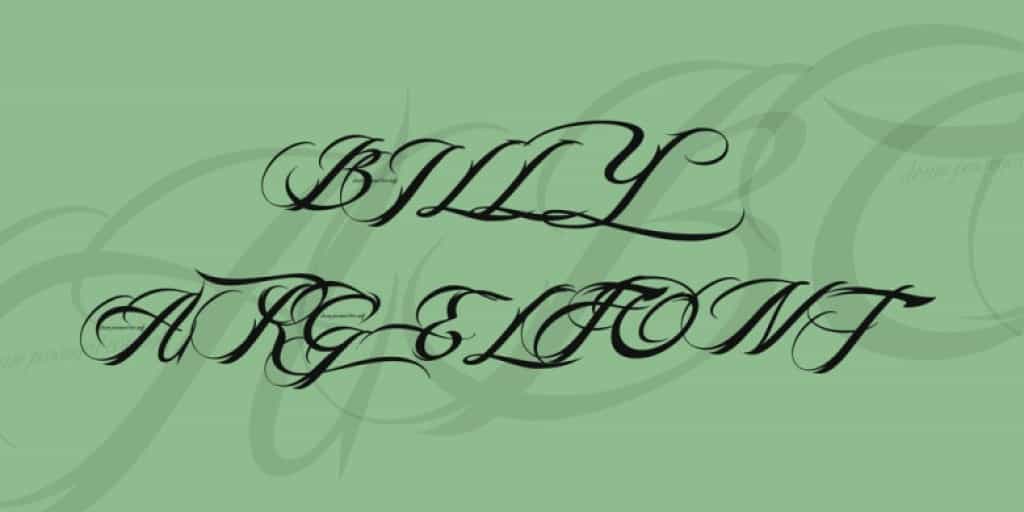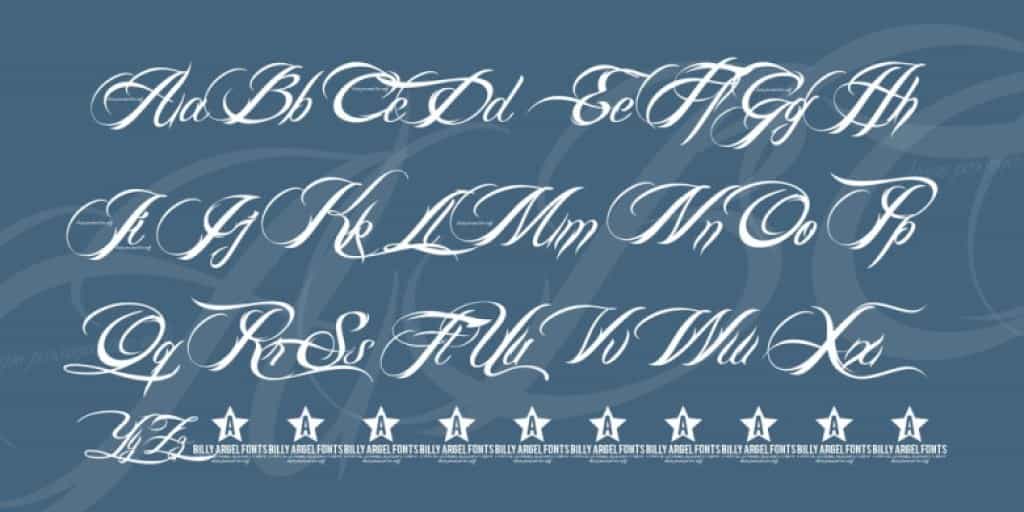
Billy Argel is a high quality script font that was crafted by the typeface designer Billy Argel and the font can be acquired for free for private use. The free version has both the capital and small letters in addition to some symbols that are helpful while writing in calligraphy.